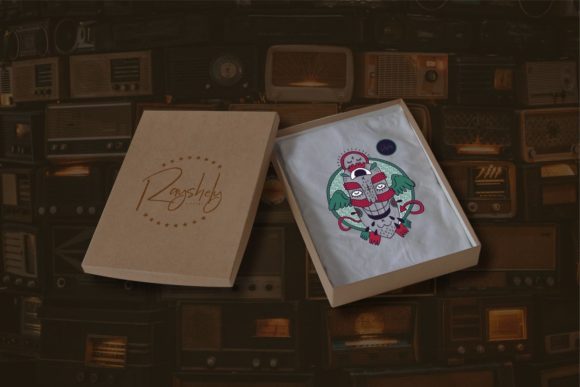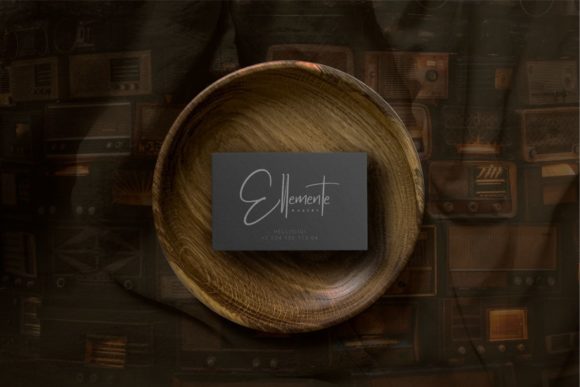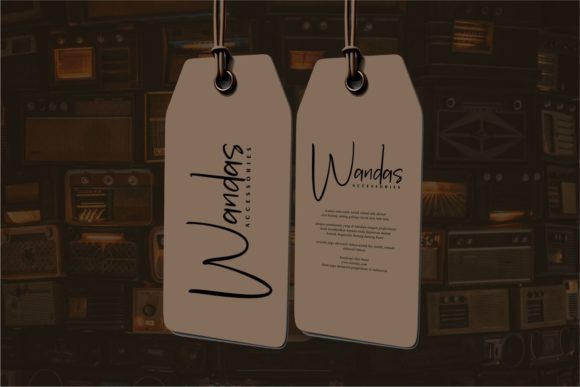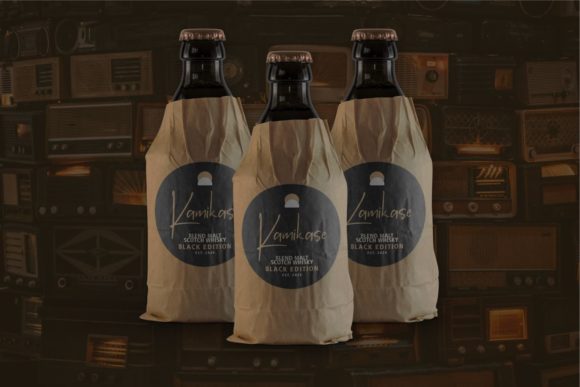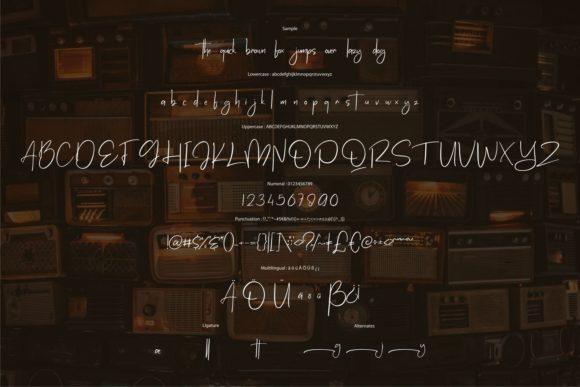
Ruberthenry Font
About Ruberthenry Font
“Ruberthenry” is a beautiful and airy handwritten font that carries a unique and impactful essence. With its distinct style, this font has the potential to infuse a touch of luxury into any design project you embark upon.
The delicate and light appearance of “Ruberthenry” lends itself well to a variety of design contexts. Its carefully crafted characters and graceful strokes contribute to an overall sense of elegance, allowing it to shine in different applications.
When incorporated into your design endeavors, “Ruberthenry” brings forth a feeling of luxury and refinement. Its unique design elements bring a fresh perspective to your work, ensuring that your creations stand out and capture the viewer’s attention.
In essence, “Ruberthenry” transcends being a mere font—it transforms into a creative instrument that elevates your design projects to new heights of beauty and sophistication. Its ability to add a spark of luxury ensures that your designs possess an aura of exclusivity and charm. With “Ruberthenry,” your projects radiate with elegance and grace.